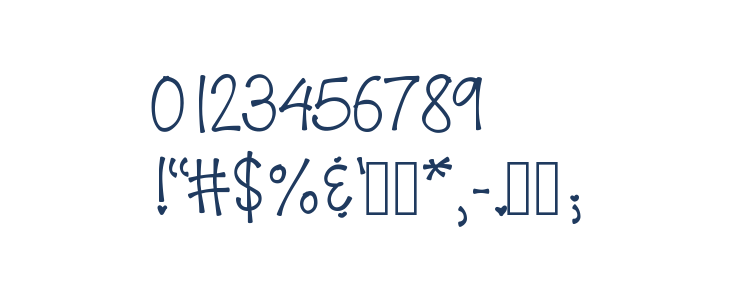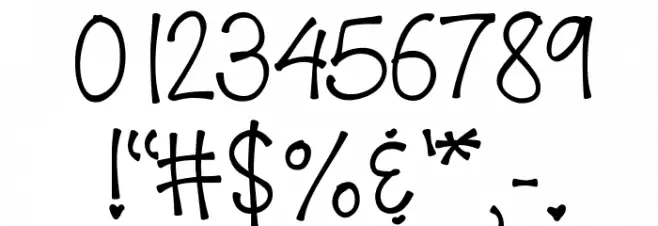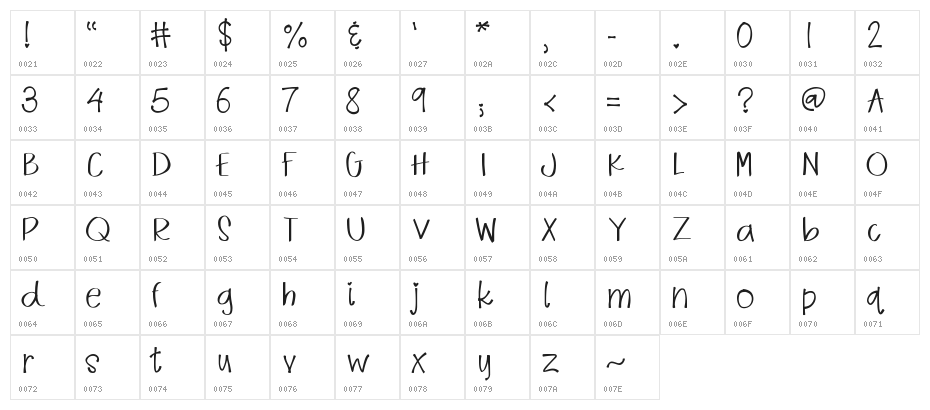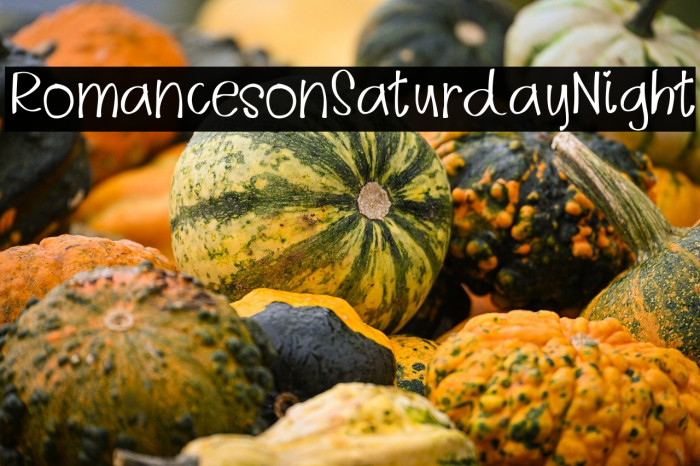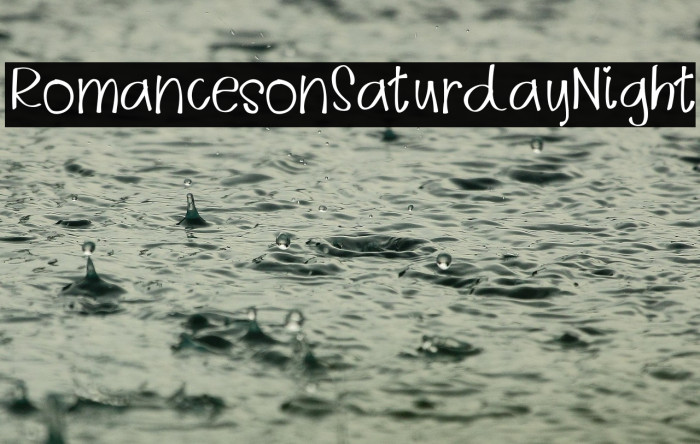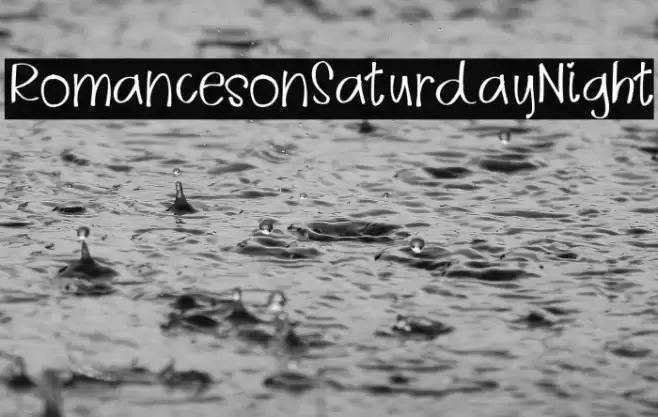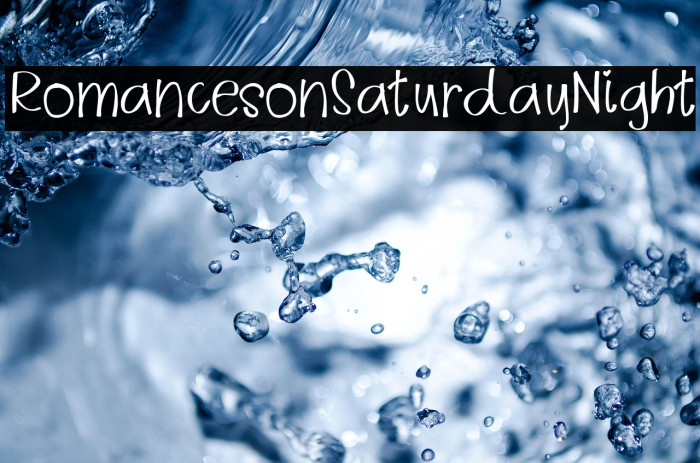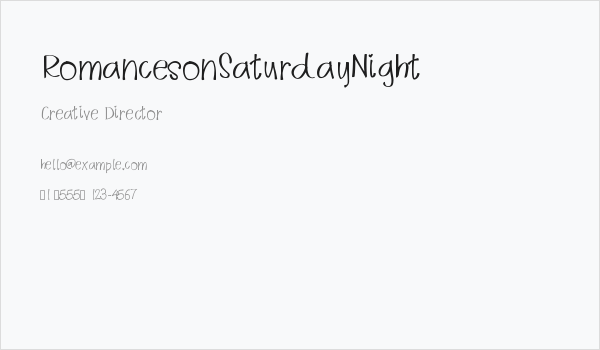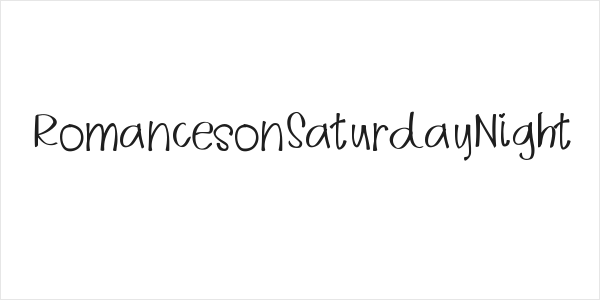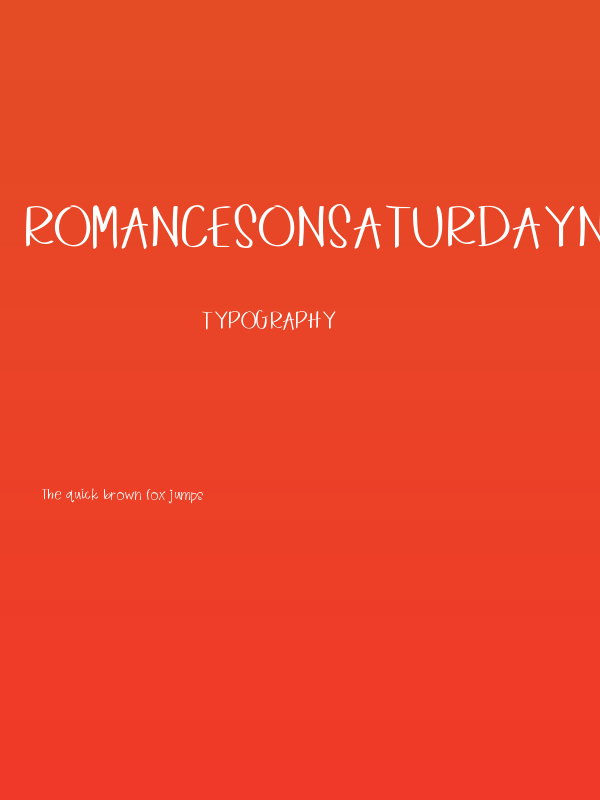
RomancesonSaturdayNight Font
RomancesonSaturdayNight Description
This playful and whimsical font features a handwritten style with a casual and friendly appearance. The uppercase letters are tall and slightly narrow, with a consistent stroke width that gives them a clean look. The lowercase letters are more rounded and feature unique, playful curves that add character and charm. Numbers are bold and easy to read, maintaining the same playful style as the letters. Special characters are creatively designed, adding to the overall fun and informal feel of the font. This font is perfect for projects that require a personal touch, such as invitations, greeting cards, or playful branding.